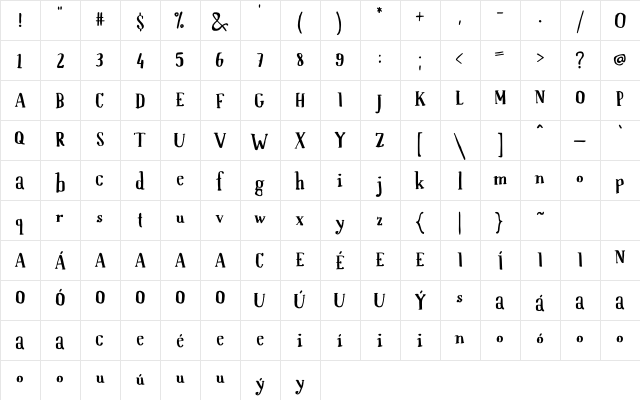
Upirjump Regular
| Foundry | Vaclav Krejci |
| Designer | Vaclav Krejci |
Design Context for Upirjump Typeface
Upirjump is a composed and adaptable typeface that performs quietly and consistently across a wide range of design contexts.